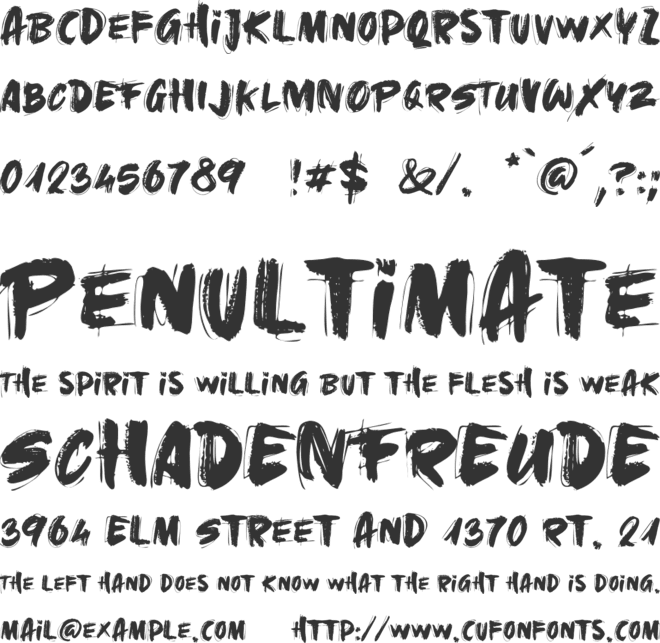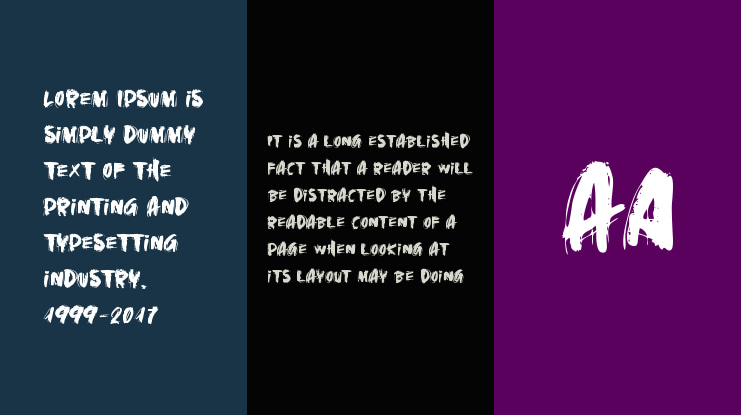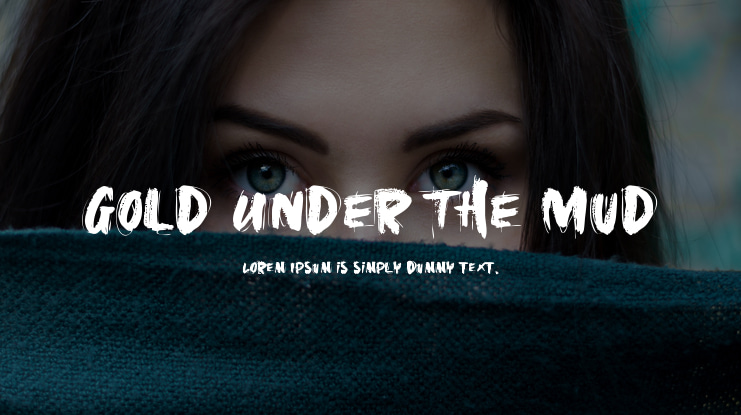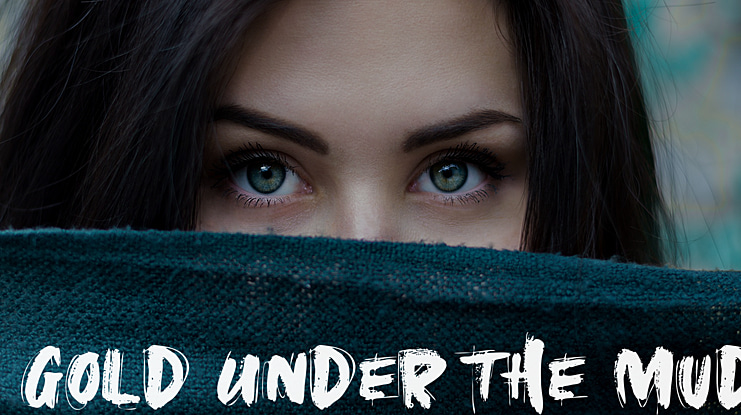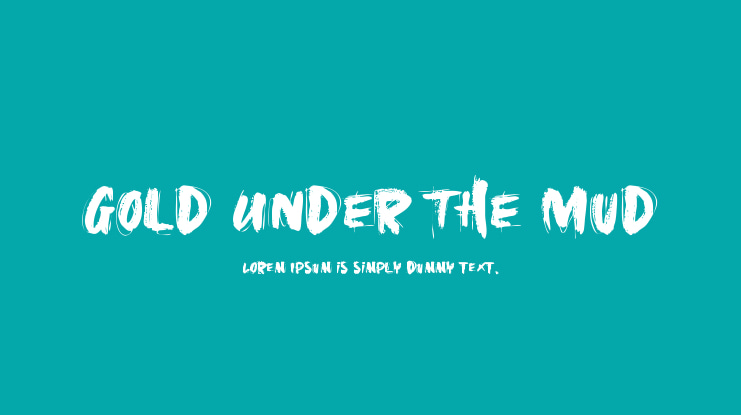
Gold Under The Mud Font
GOLD UNDER THE MUD is a hand drawn grungy font with all capital letters.
I recommend to play around and combine / mix up upper and lowercase characters it looks more natural (for example when you have double letters) so they don't look identical.
I set a standard ligature for double T (TT) but for the rest you need to switch lowercase to uppercase to change and break repetition.